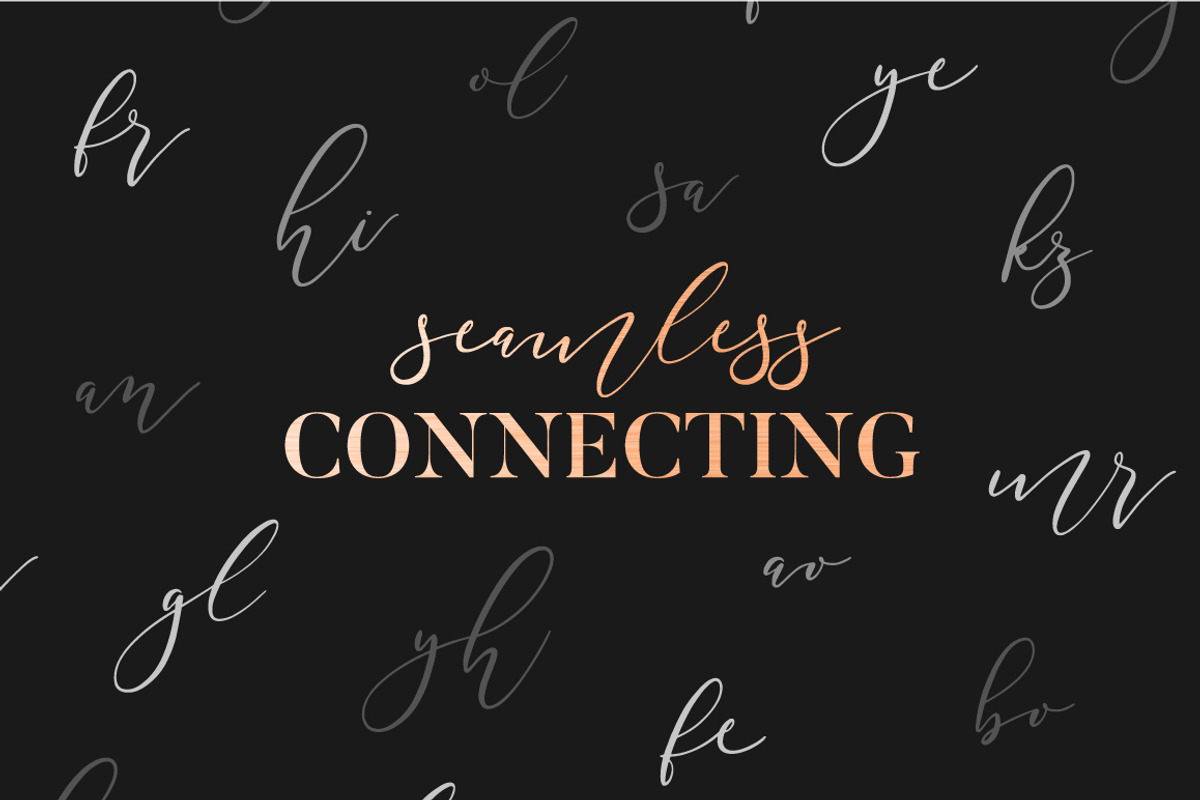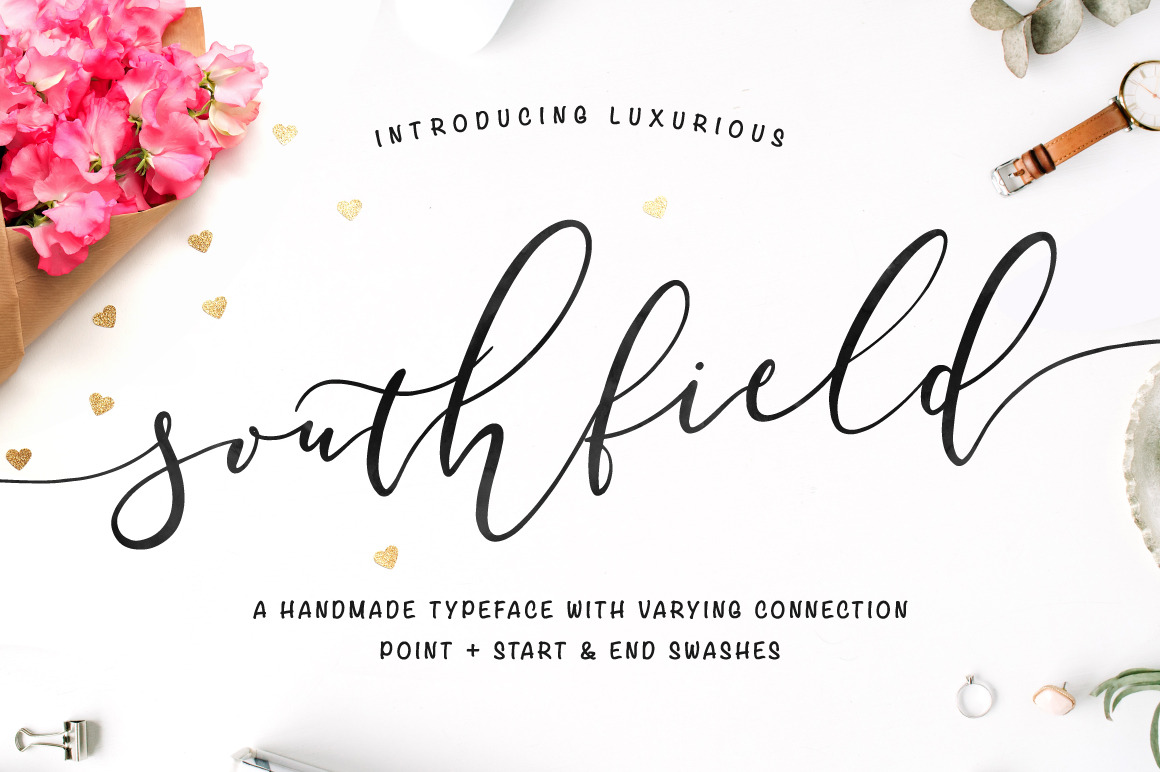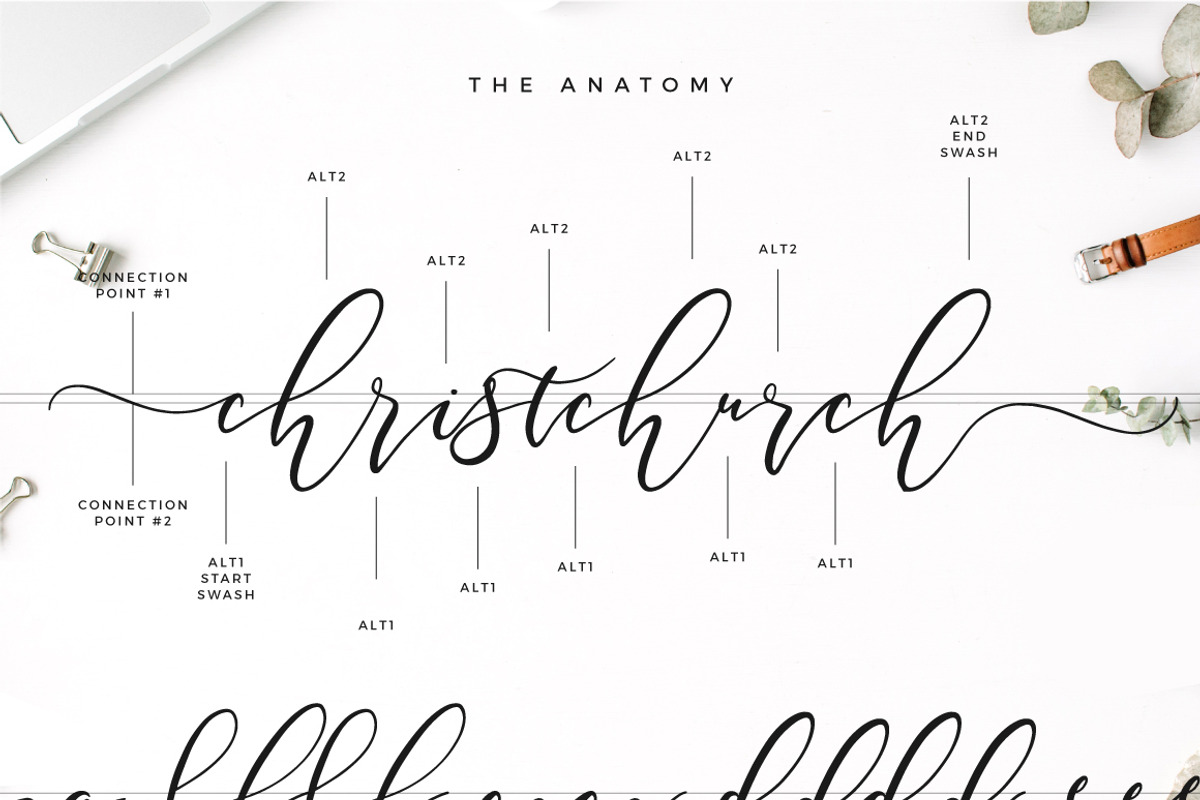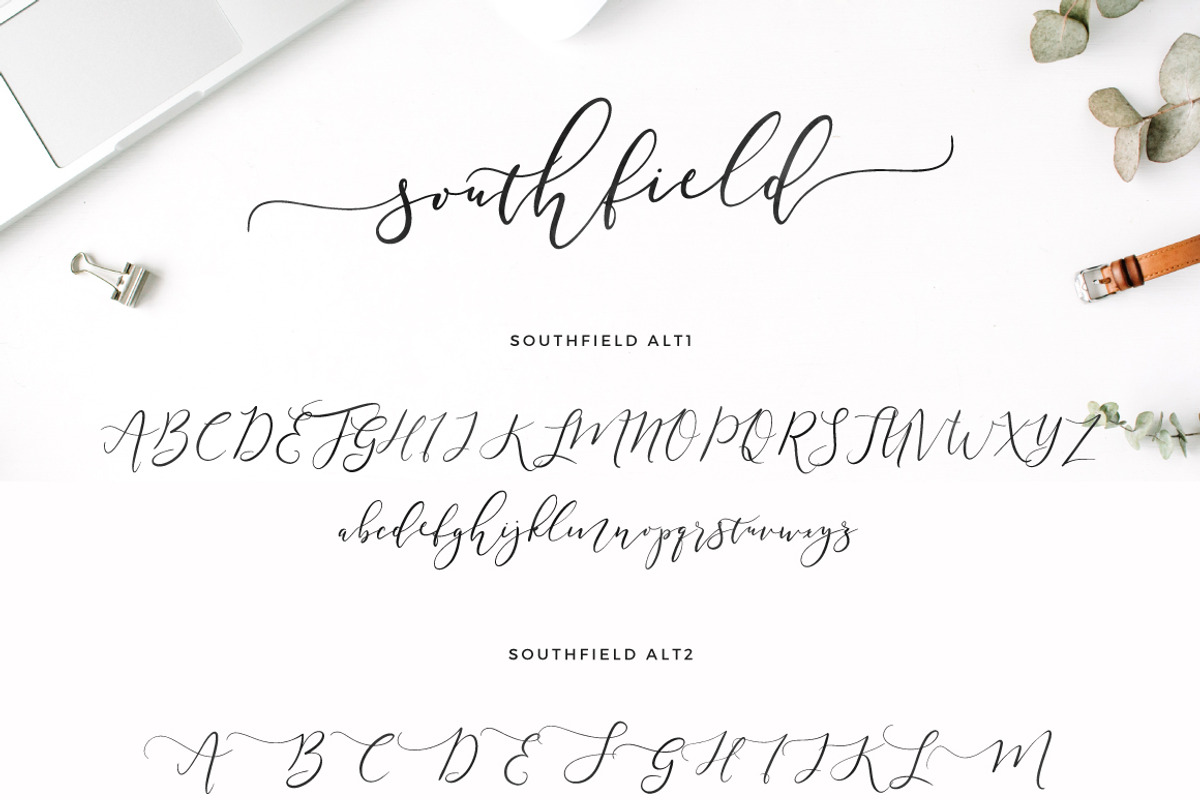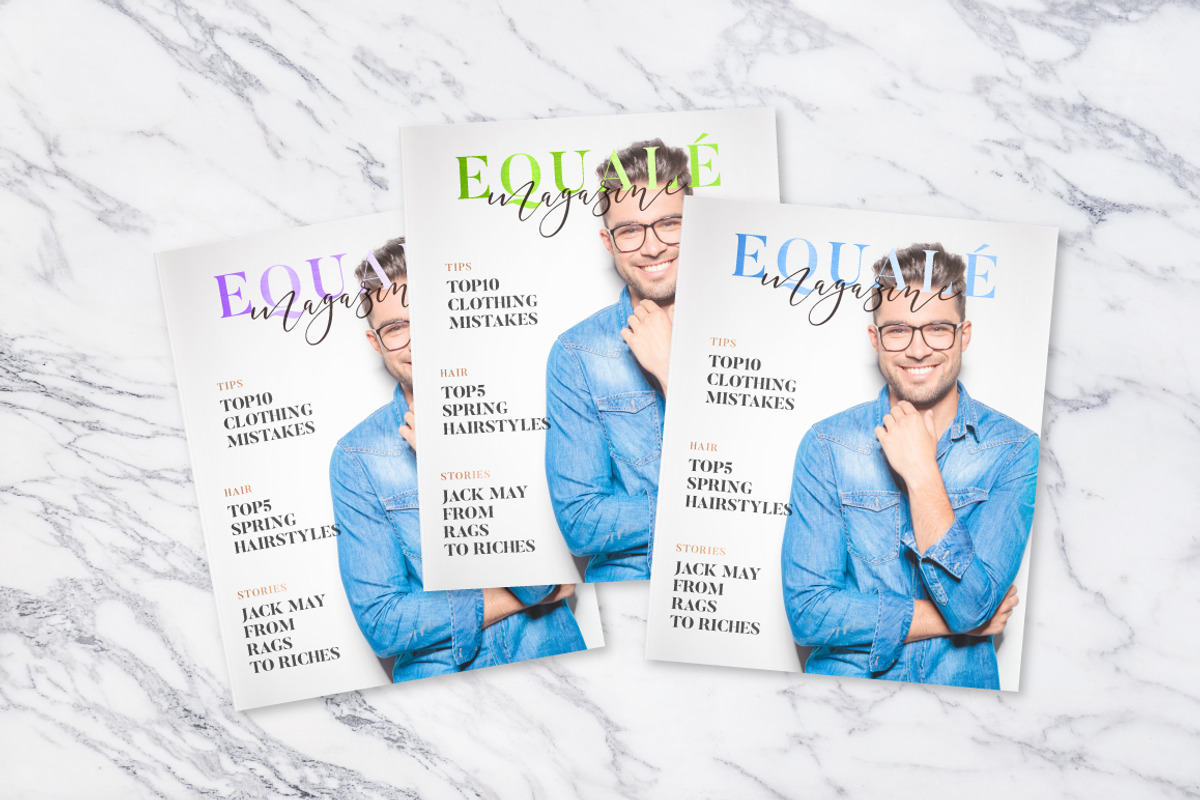
Southfield Typeface
Say hi to the luxurious and unique new font, Southfield! It's a really modern font with two connection points and start & end swashes. This is definitely the best font I've ever created! It changes the connection point beautifully and looks like freshly handmade. I took a careful approach to make it as simple as possible to use and it definitely is. Just jump from ALT1 to ALT2 and vice versa to rock your next design :)
Southfield includes start and end swashes for each main character. It has two fonts that connect perfectly with each other. Different connection points makes it really unique and rare typeface! Use either glyphs panel or individual fonts to connect your words.
1. Southfield Alt1 and Alt2 (2 fonts)- Upper and lowercase characters, numerals, punctuations and a wide language support. Including both, OTF and TTF filetypes. Alt1 and Alt2 has different connection points, which plays perfectly together.
2. Southfield Swashes (4 fonts) - Full swashes for upper and lowercase characters to make your design look superbly unique!! Access alternates either via Glyphs Panel (OTF) or individual fonts (OTF, TTF).